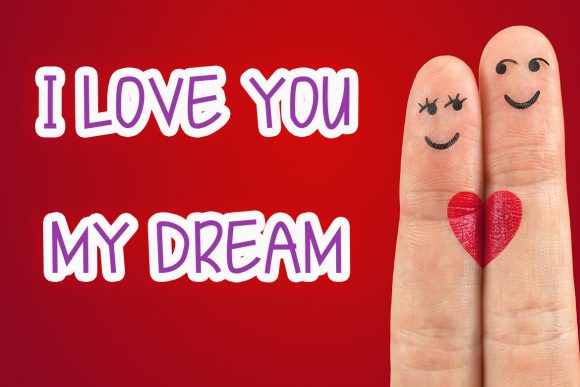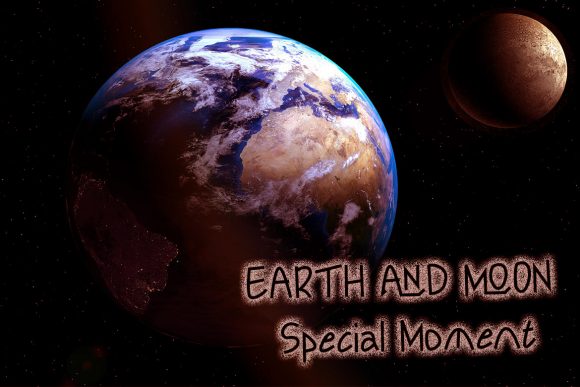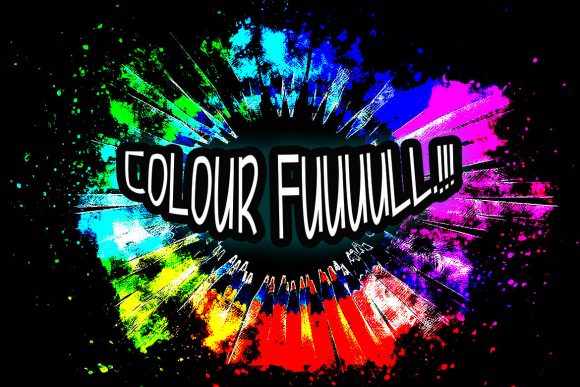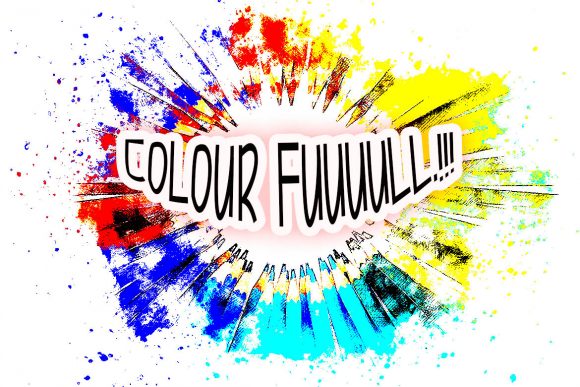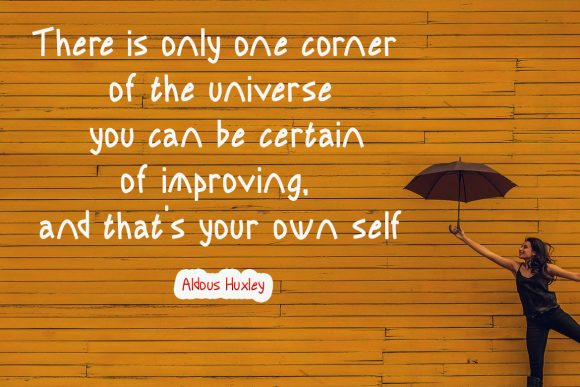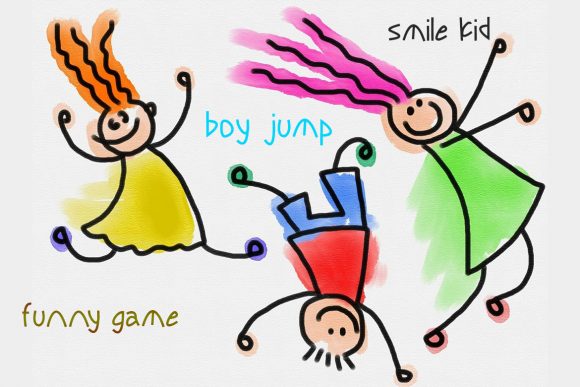
Introduction to Rafan Wolllez Font Font
Fonts play a crucial role in design, and the Rafan Wolllez Font font is a typeface that brings both character and versatility to any project. Whether you’re working on a branding project, a website, or a print design, the Rafan Wolllez Font font offers a unique style that can elevate your work.
Rafan Wolllez is a whimsical and cute display font.
No matter the topic, this font will be an incredibly asset to your fontsβ library, as it has the potential to elevate any creation .
Key Features of Rafan Wolllez Font Font
Why Choose Rafan Wolllez Font Font?
The Rafan Wolllez Font font is more than just a typeface β it’s a design tool that helps you communicate your message with style and clarity. Its unique character set and versatile design make it suitable for a wide range of applications, from elegant invitations to bold headlines.
With its carefully crafted letterforms and balanced proportions, the Rafan Wolllez Font font ensures readability and visual appeal across all mediums.
What makes Rafan Wolllez Font font special?
The Rafan Wolllez Font font stands out with its unique design, exceptional readability, and versatility across various design applications.